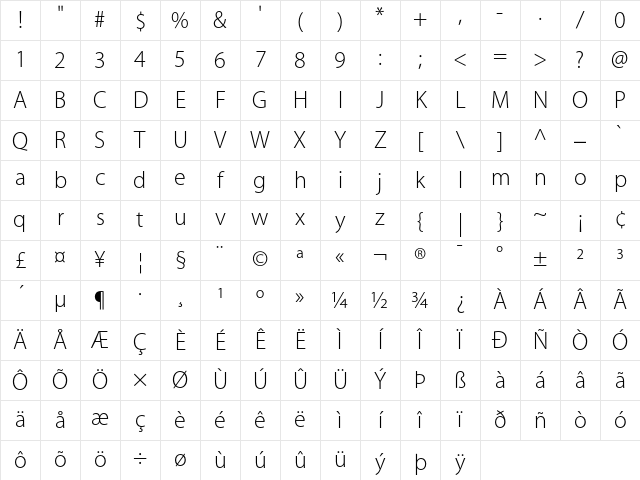
Adobe Corporate ID Myriad Light
Style: Myriad Light
Design Context for Adobe Corporate ID
Adobe Corporate ID is a composed and adaptable typeface that performs quietly and consistently across a wide range of design contexts. Its slender proportions lend an understated elegance to any composition.